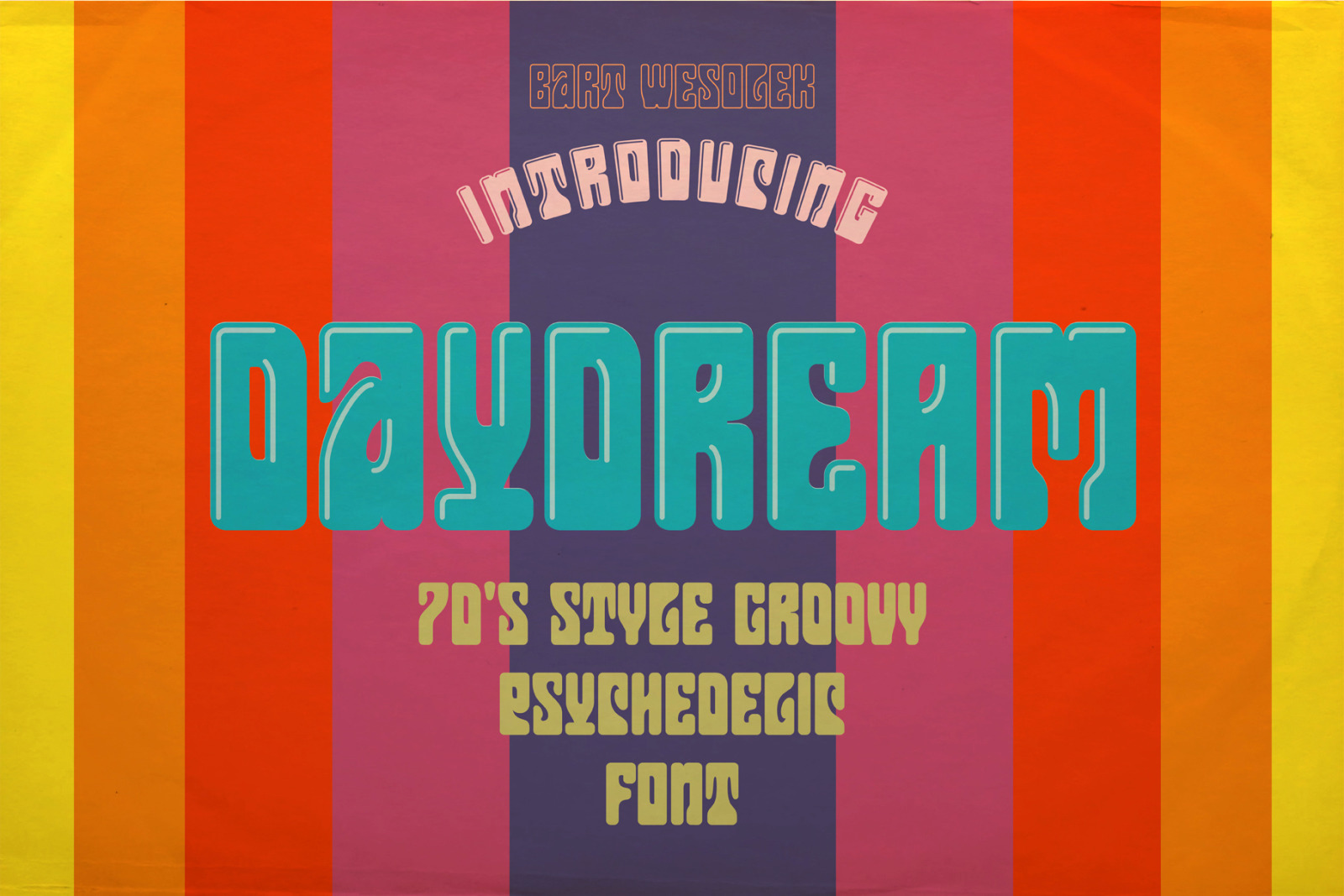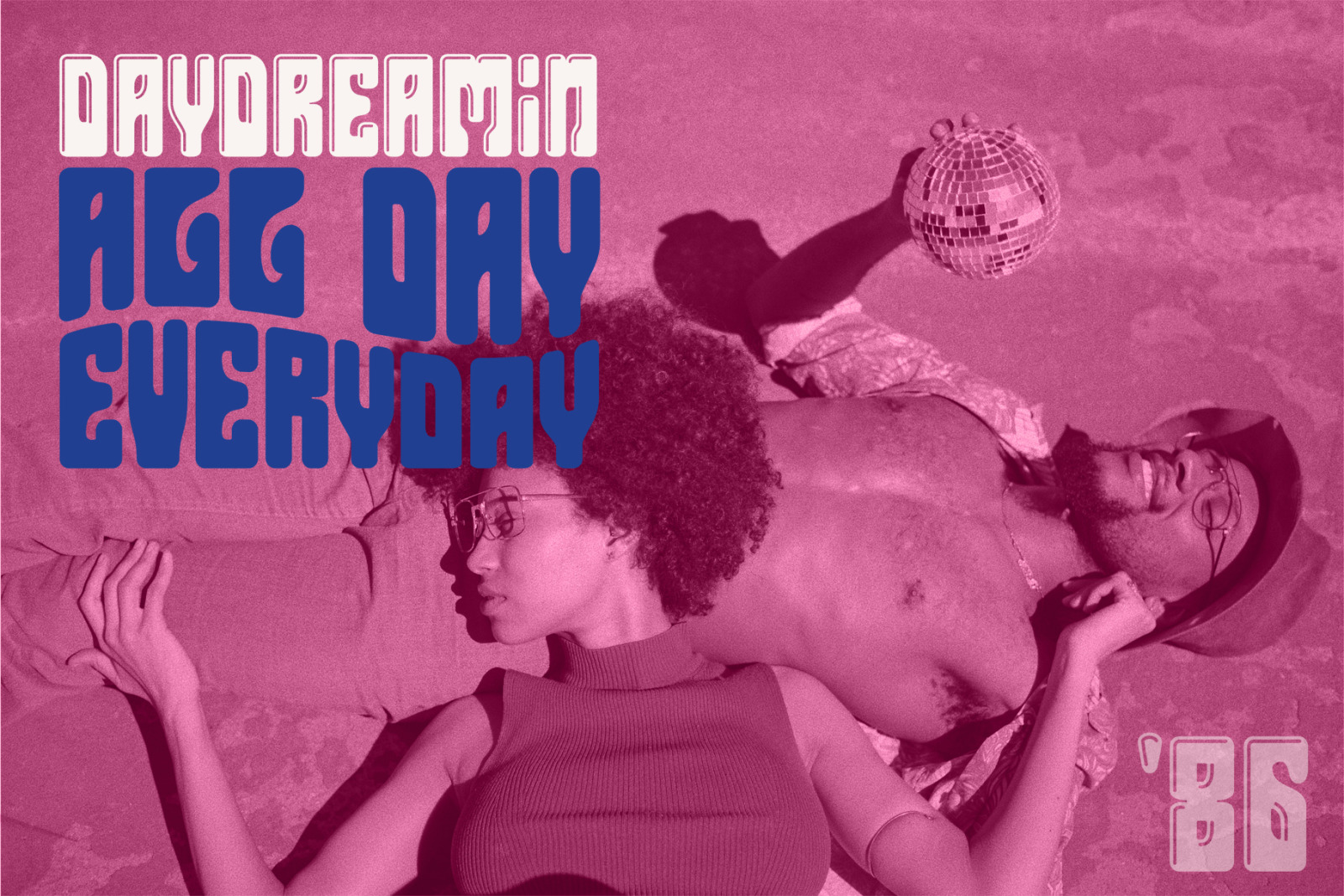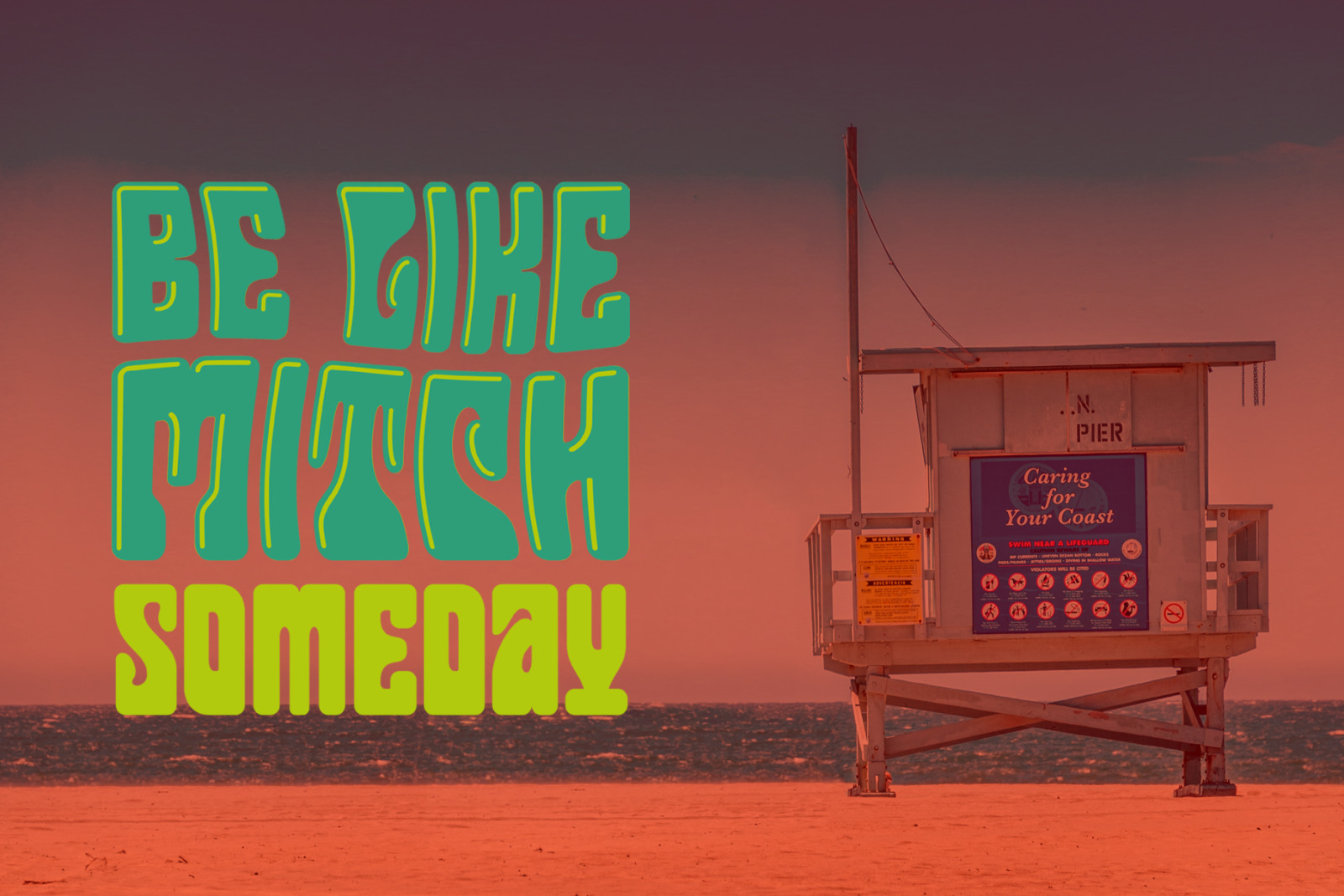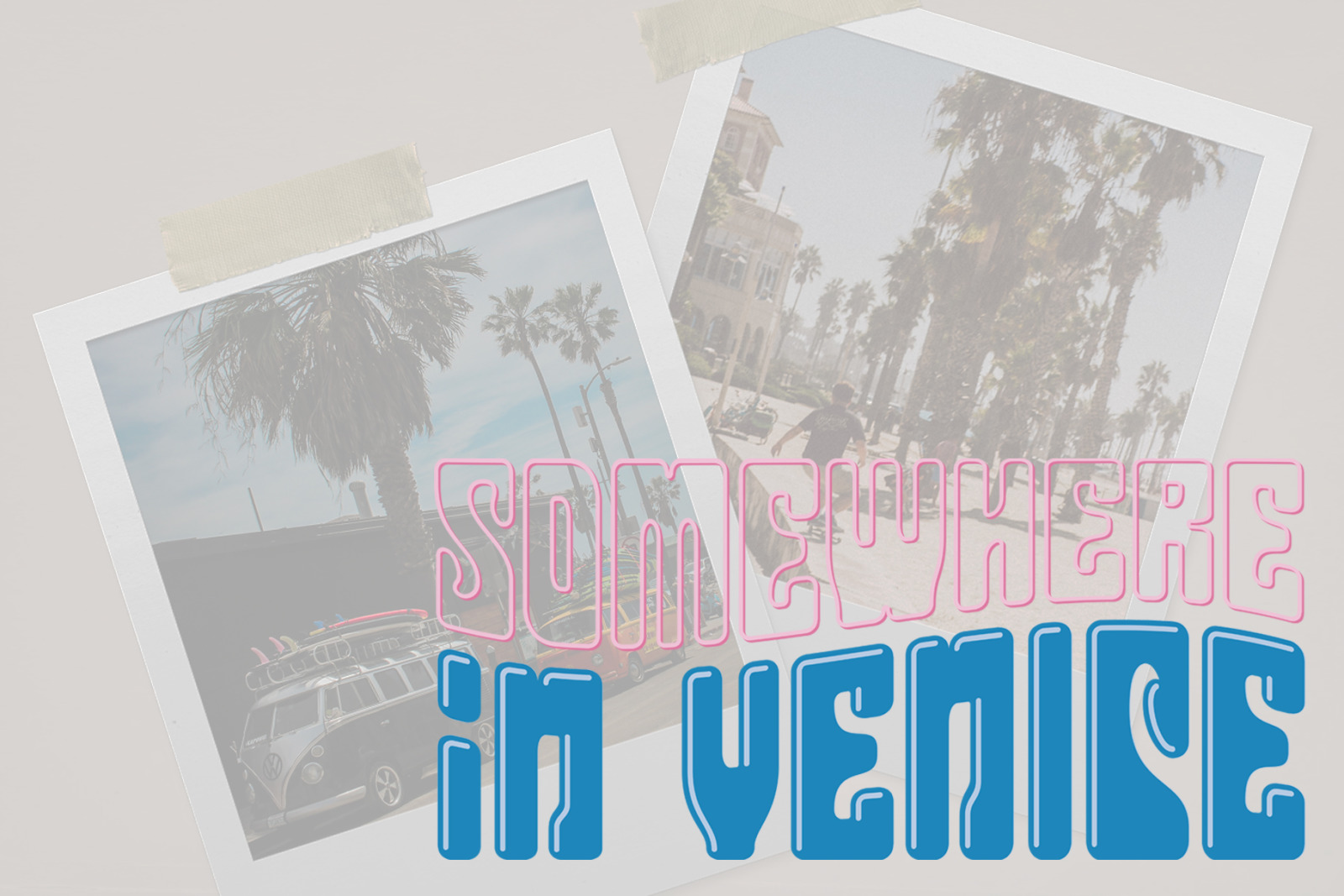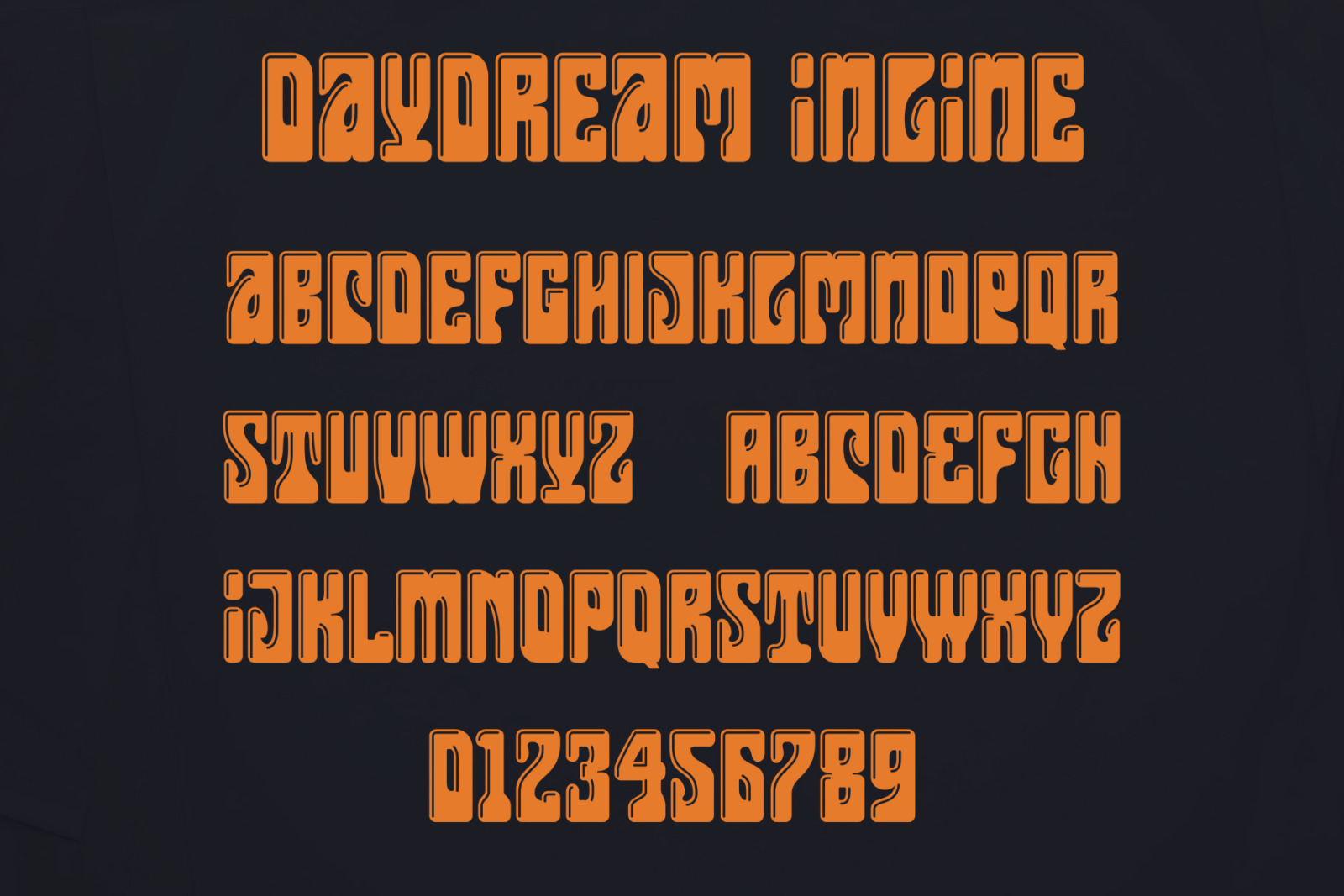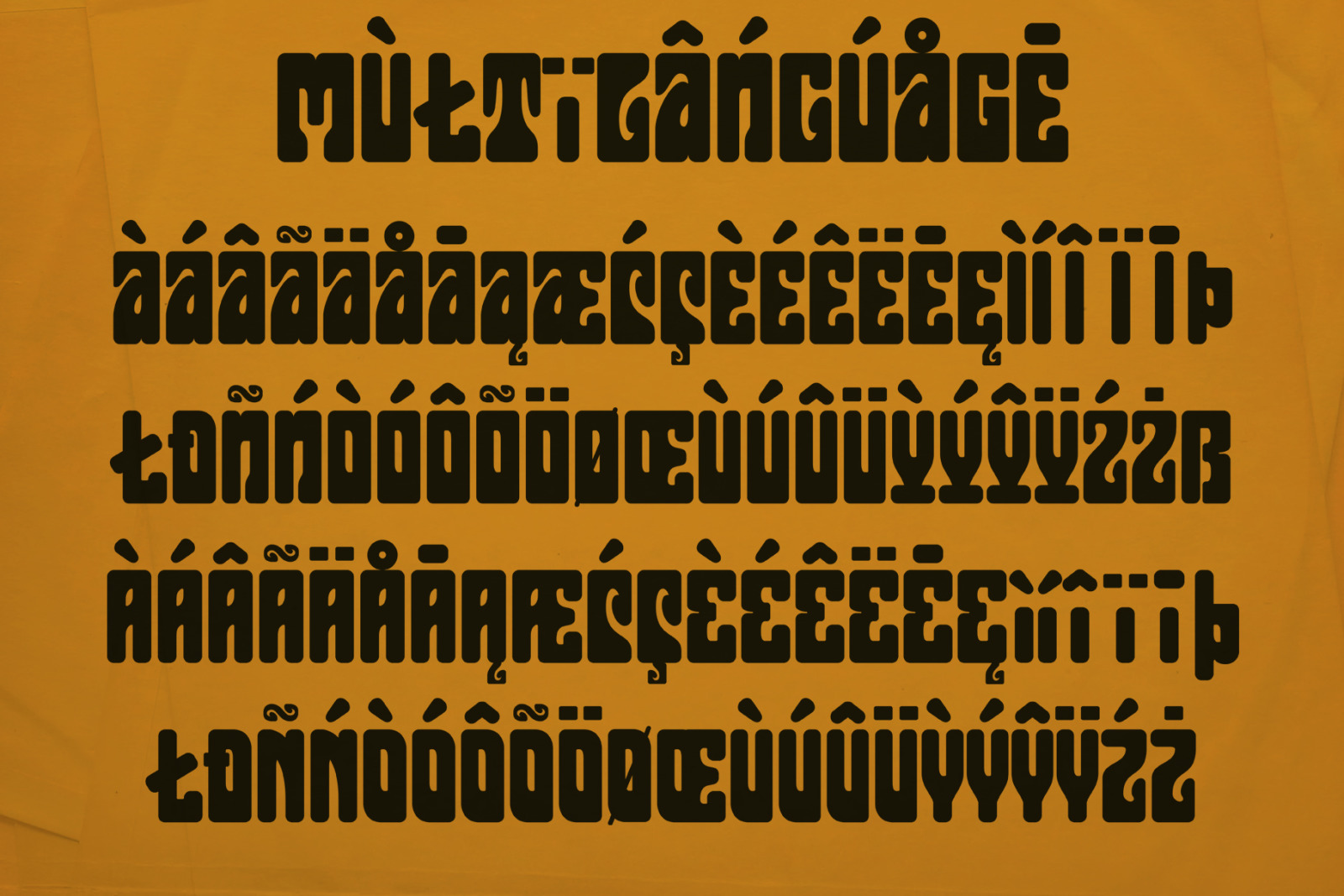
Daydream Font
Daydream is a psychedelic font based on retro typeface Dreamline from 1969. Its groovy and psychedelic style fits perfectly with contemporary trends. Three styles allow for interesting combinations and fun with the font . Daydream is great for socials brandings, labels, letterings, logos and more.
Daydream comes with 3 styles:
- regular
- inline
- outline
Language support:
ÀÁÂÃÄÅĀĄ Æ ĆÇ ÈÉÊËĒĘ ÌÍÎÏĪ Ð Ł ŃÑ ÒÓÔÕÖŒØ Ś ÙÚÛÜ ỲÝŶŸ ŻŹ Þß
àáâãäåāą æ ćç èéêëēę ìíîïī ð ńñ òóôõöœø ś ùúûü ỳýŷÿ żź þ